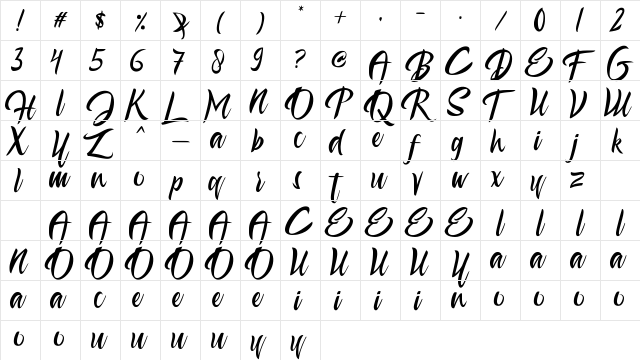
Aesthetic Gelatinate Regular
| Designer | Agni Ardi Rein Prasetyo |
Design Context for Aesthetic Gelatinate Typeface
Aesthetic Gelatinate is a composed and adaptable typeface that performs quietly and consistently across a wide range of design contexts.